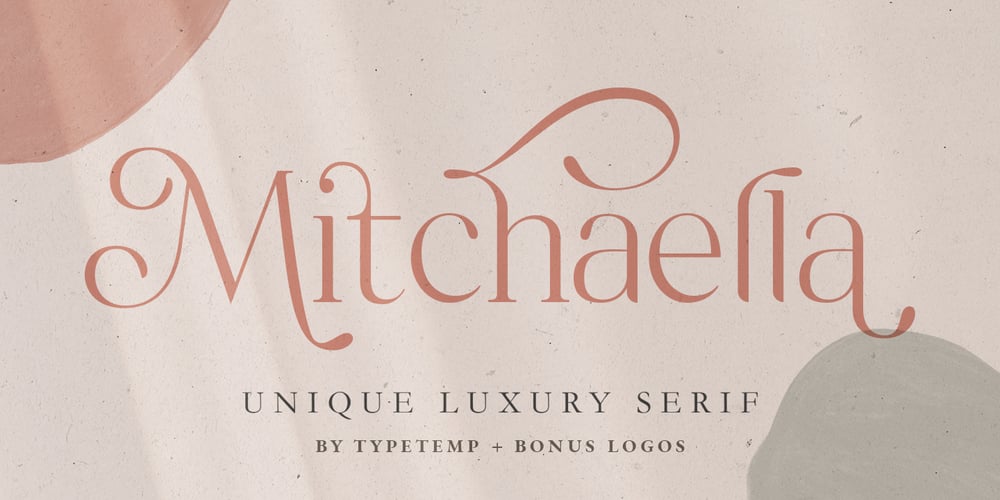
Mitchaella Luxury Serif Font Family was designed by Egi Ahmad Mufid and published by Typetemp Studio. Mitchaella Luxury Serif contains 1 styles and family package options. Mitchaella Luxury Serif Font is a modern, unique, and a luxurious serif typeface. The font comes with many alternative characters, ornaments, multilingual support, ligatures and a bonus wedding illustration*. Hence, the font is a suitable for branding, branding logos, magazine imagery, wedding invitations, posters, fashion, packaging, website logos and more.